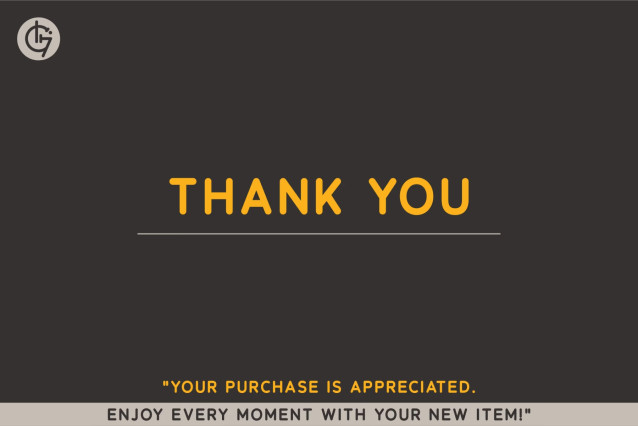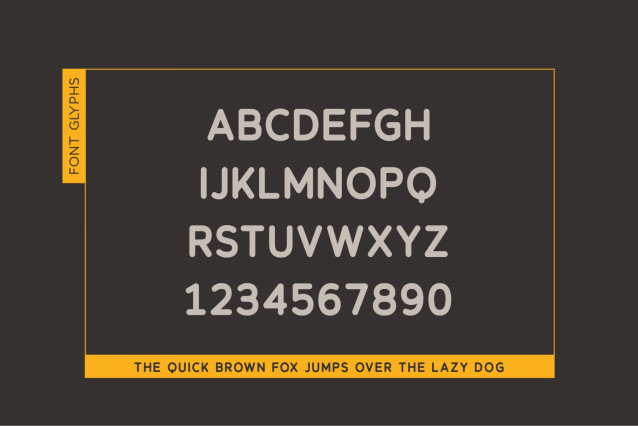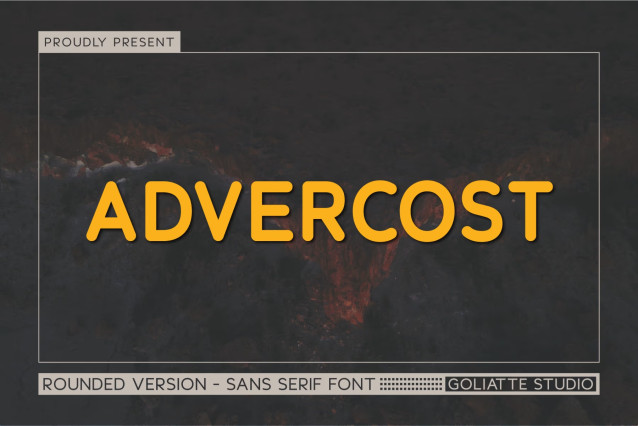
Advercost Font
Inject high-energy friendliness, bold marketing punch, and versatile clarity into your advertising graphics with Advercost! Built as a rounded sans-serif display font, its solid geometry and smoothly curved stroke ends ensure high visibility and immediate reader connection across any backdrop.
Perfect for promotional ad banners, retail signage, casual logo marks, food truck branding, social media graphics, and digital marketing headlines!